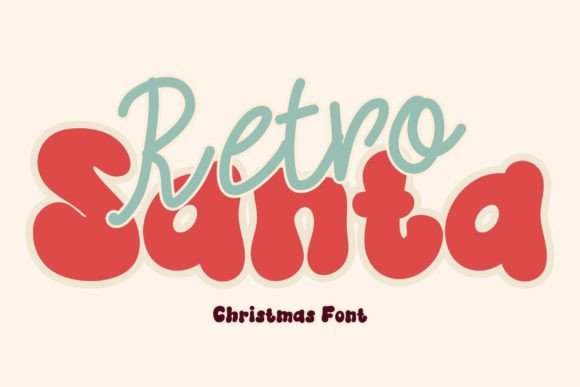
Introducing Retro Santa Font, the ultimate choice for anyone seeking an extraordinary and captivating typeface! Created by the talented team at Brown Cupple Fonts, this retro groovy display and script font family is specifically designed to add an instant touch of playfulness and authenticity to your creative projects.
Are you tired of using generic fonts that fail to evoke any emotions or leave a lasting impression? Look no further! Retro Santa Font is here to revolutionize your designs and elevate them to new heights. With its unique charm and versatility, this font is guaranteed to make your work stand out from the crowd.
Unleash your creativity and explore endless possibilities with Retro Santa Font. Whether you're a blogger, a business owner, or a graphic designer, this font will be your ultimate companion. Craft captivating blog posts, mesmerizing logos, and memorable branding that will leave a lasting impact on your audience.
But that's not all! Retro Santa Font is not just limited to digital platforms. It is also perfect for physical mediums such as ads, invitations, greeting cards, planners, and even photo albums. Transform your special moments into cherished memories by incorporating this font into your decorations and designs.
With Retro Santa Font, the possibilities are truly limitless. Its eye-catching appeal and impeccable readability make it a perfect choice for both professional and personal projects. Immerse yourself in the nostalgia of past eras while adding a modern twist to your creations.